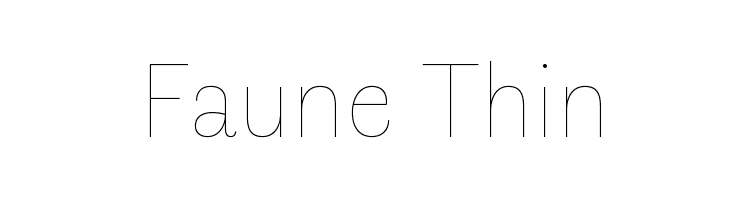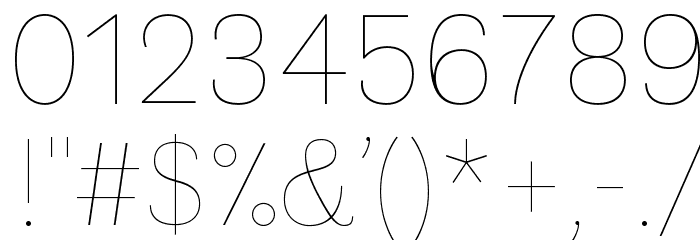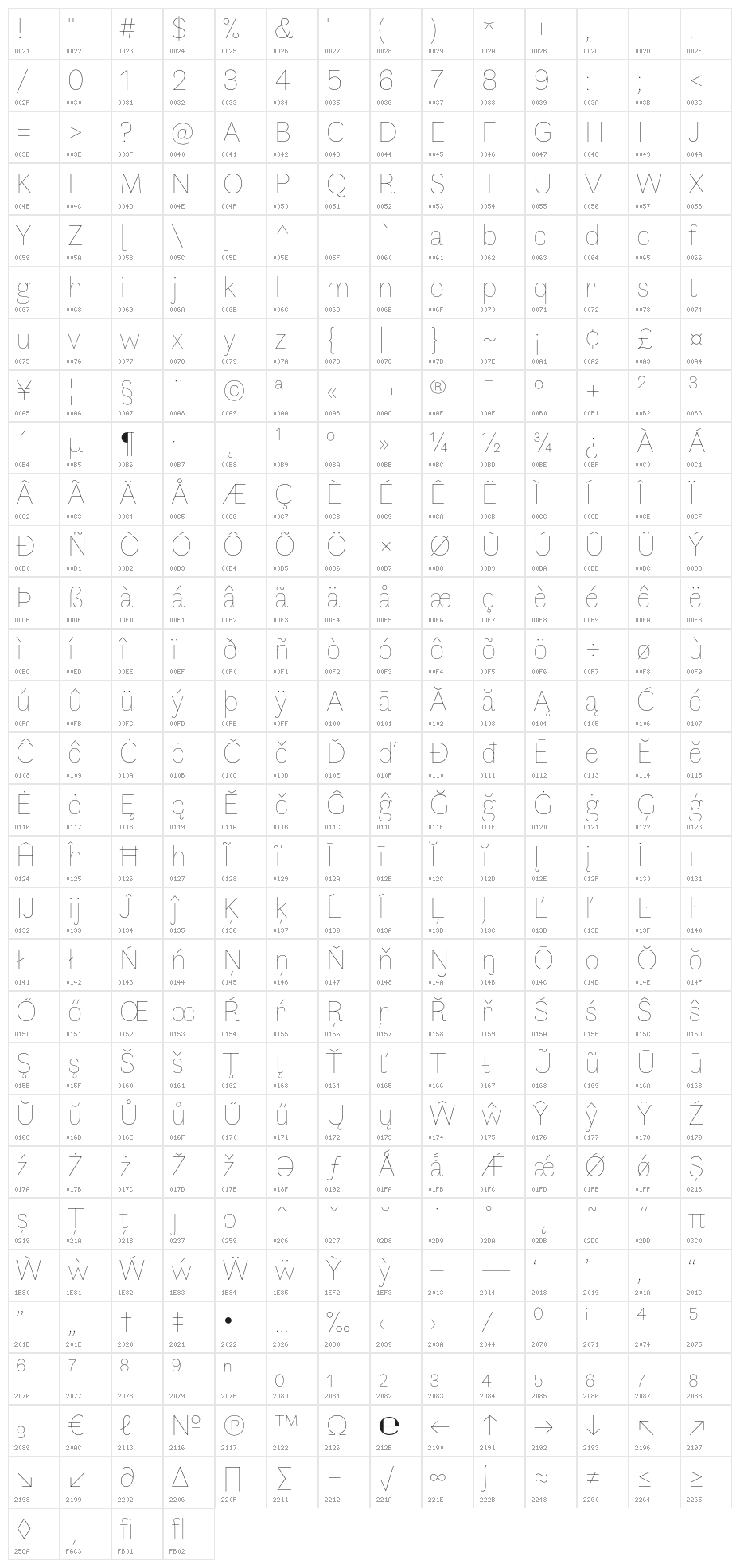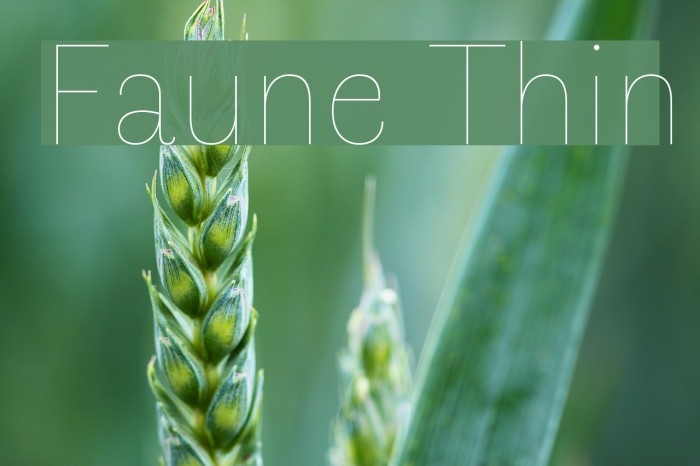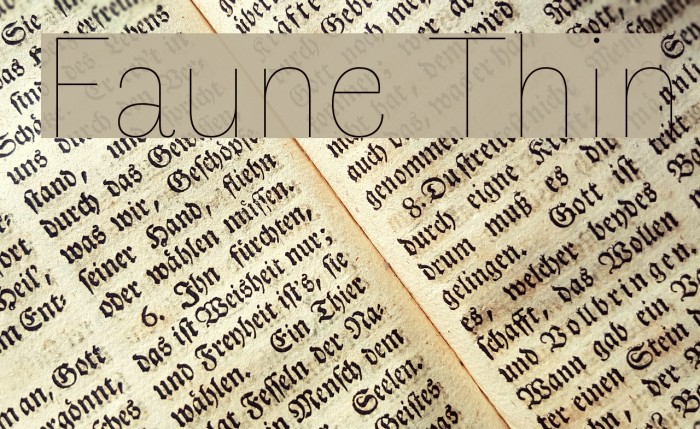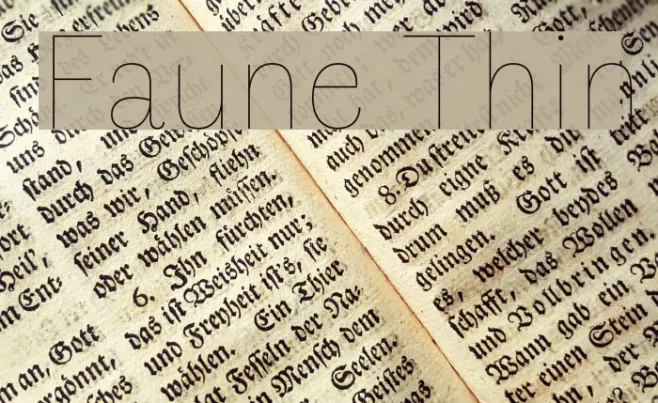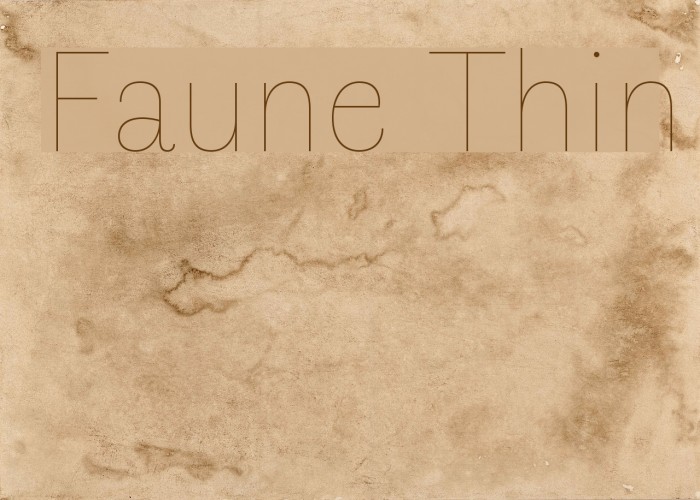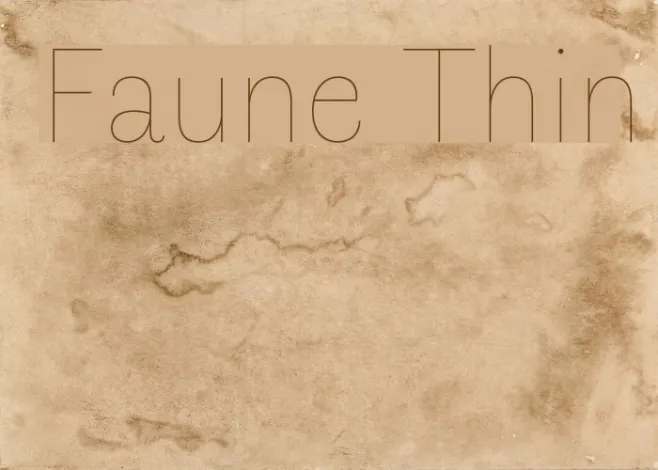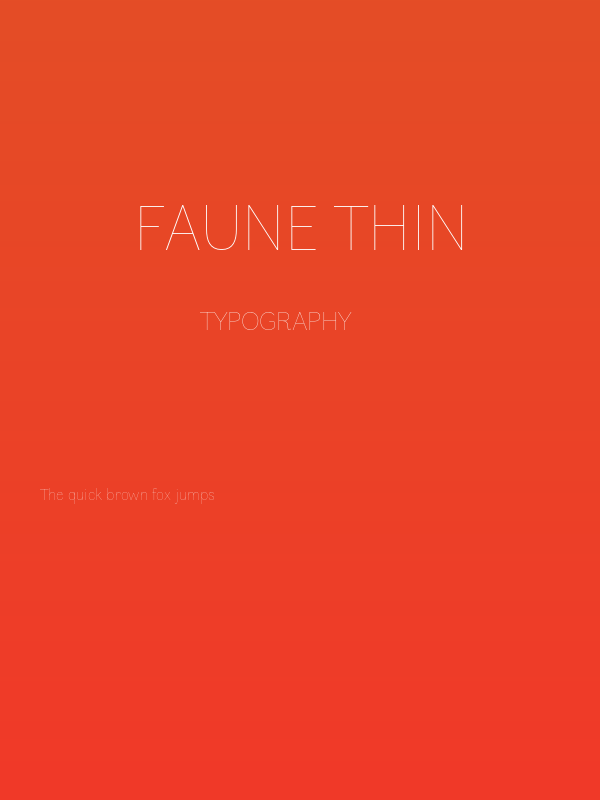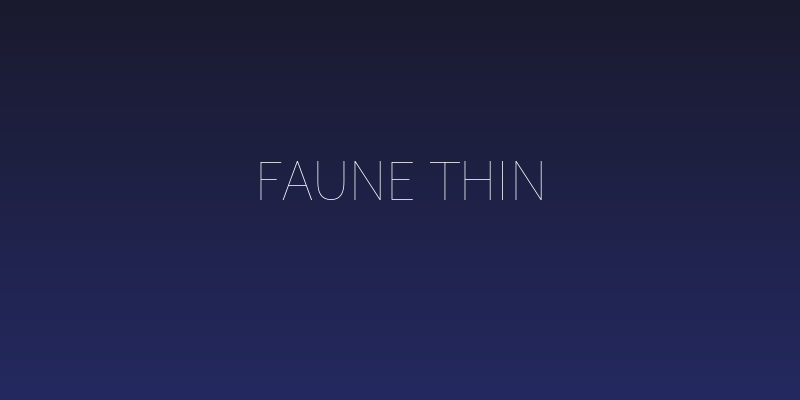
Faune Thin Font
This font features a sleek and minimalistic design with thin strokes and a modern aesthetic. The characters are evenly spaced, providing a clean and airy appearance. The uppercase and lowercase letters maintain a consistent style, with rounded edges and a geometric influence. The numerals and special characters are designed to complement the alphabet, maintaining the same thin line weight and modern feel. This font is ideal for projects that require a contemporary and elegant touch, offering clarity and sophistication.
Use CaseHeadlines, Body text, Logos
Proposed ProjectsIdeal for modern branding, minimalist design projects, elegant invitations, and contemporary web design.